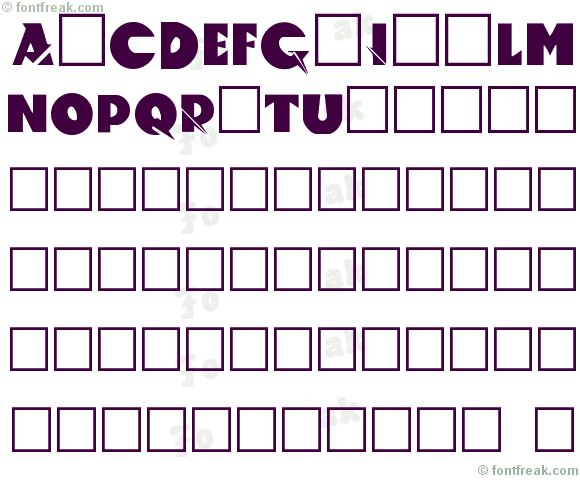
ACCELERATOR
About Accelerator
The Accelerator font by Snatchsoft is a striking display typeface that encapsulates a unique blend of modern flair and dynamic energy. Designed in 1998, this font features a bold and angular design, characterized by its varying stroke weights that create a sense of movement and excitement. The high contrast between thick and thin strokes adds visual interest, while the geometric shapes and clean lines contribute to its contemporary aesthetic. The spacing is thoughtfully crafted, ensuring legibility without sacrificing its bold character.
Ideal for various creative projects, the Accelerator font shines in use cases such as eye-catching movie posters that require a punchy title treatment, energetic branding for sports teams, and dramatic event flyers. Its distinctive style also makes it a great choice for video game graphics, where a futuristic look is often desired. Additionally, small business owners can leverage this font for promotional materials, helping to establish a vibrant and memorable brand identity.
What truly sets the Accelerator font apart is its ability to convey excitement and energy while remaining highly legible. Whether you are designing a bold headline or creating a unique logo, this font offers the perfect balance of style and readability. With the Accelerator font free download option, you can easily incorporate this distinctive typeface into your next creative project, ensuring that your designs leave a lasting impression.